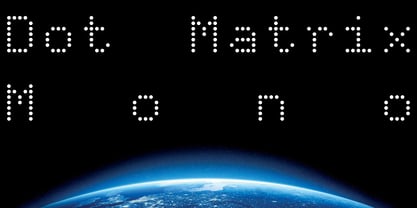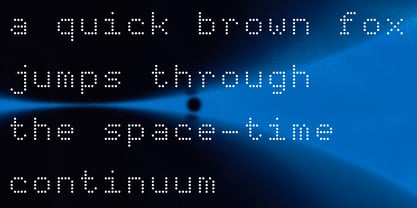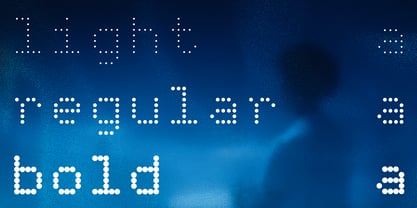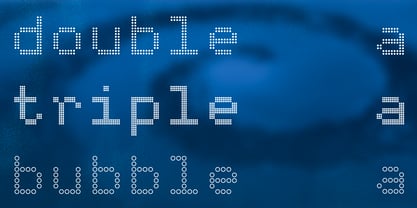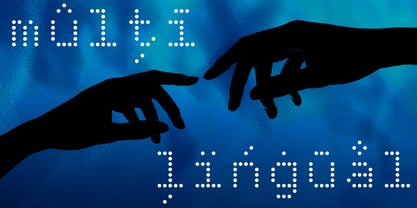
Dot Matrix Mono VP
The Dot Matrix Mono VP Font Family was designed by Val Kalinic and published by VP Type. Dot Matrix Mono VP contains 6 styles and family package options. More about this family
Dot Matrix Mono revisits the logic of early dot matrix displays and reframes it for a contemporary visual language. Built on a rational monospaced framework using a modular grid of dots, every character shares the same fixed width and emerges within a unified structure. This constraint gives the typeface its clarity and rhythm: precise in construction, yet visually fluid in use. What was once considered low-tech now feels quietly timeless. The ever-present grid and reduced forms evoke early digital interfaces, while the overall atmosphere aligns with today’s minimalist, techno-natural visual culture. A subtle contrast is at play: strict geometry meets a soft, atmospheric presence. Set large and given space, the typeface feels structured but not cold and takes on a calm, expansive quality. The family includes six styles: Light, Regular, Bold, Double, Triple, and Bubble. The system shifts from restrained and refined to dense and expressive. As the matrix thickens, the texture becomes increasingly graphic and tactile, while the monospaced discipline maintains cohesion. This range makes Dot Matrix Mono well suited for branding, editorial concepts, digital projects, and visual identities that require clarity with character. With 433 glyphs per style and support for over 200 languages, Dot Matrix Mono combines conceptual clarity with international usability. It is defined by its grid, but not limited by it — precise, minimal, and adaptable across contexts.